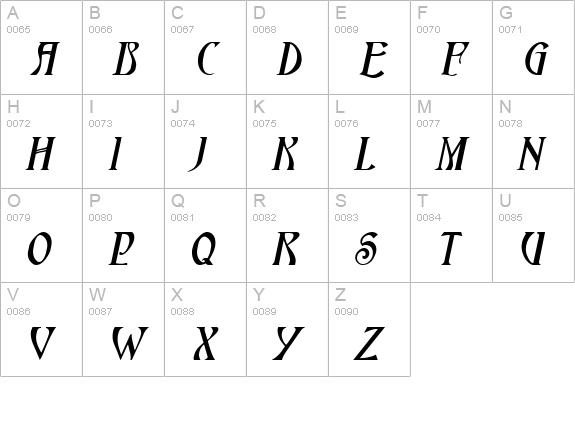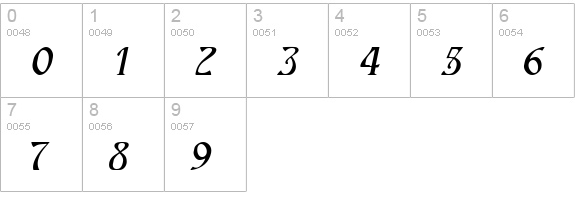
NouveauExtended Bold Italic Font Details
NouveauExtended Bold Italic is a strong, high-contrast, italic variant in the NouveauExtended typeface family \xE2\x80\x94 well suited to headlines, attention-grabbing titles, and strong calls-to-action.
NouveauExtended Bold Italic font is a visually striking and elegant typeface that exudes modernity and sophistication. Its bold and italic design adds a touch of flair and emphasis to any text, making it perfect for headlines, titles, and branding materials. The sleek and contemporary look of NouveauExtended Bold Italic font makes it a versatile choice for a wide range of design projects, from advertising to editorial layouts. Best of all, NouveauExtended Bold Italic font is available for free download at FontsMarket.com. This means you can easily access this stylish typeface to elevate your designs without any cost. Whether you're a professional designer or a hobbyist looking to enhance your projects, NouveauExtended Bold Italic font is a valuable addition to your font collection. Download it today and unleash your creativity with this dynamic and eye-catching typeface.